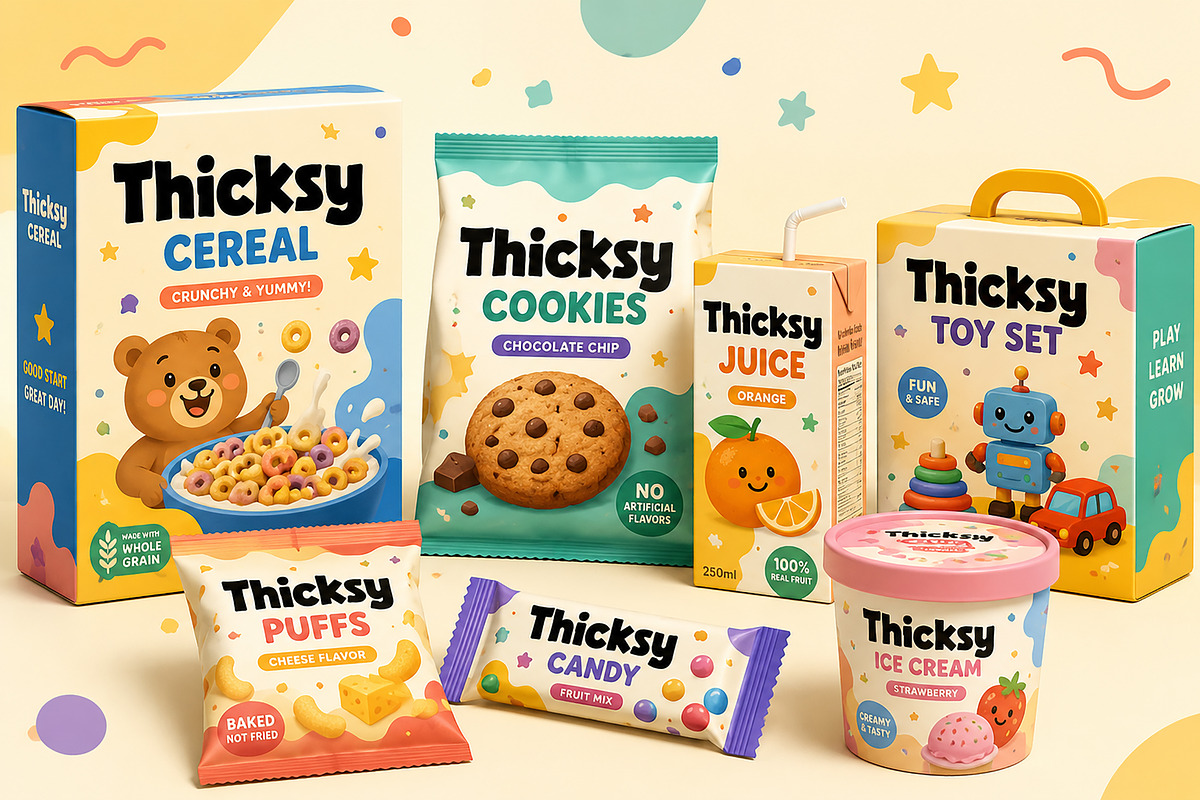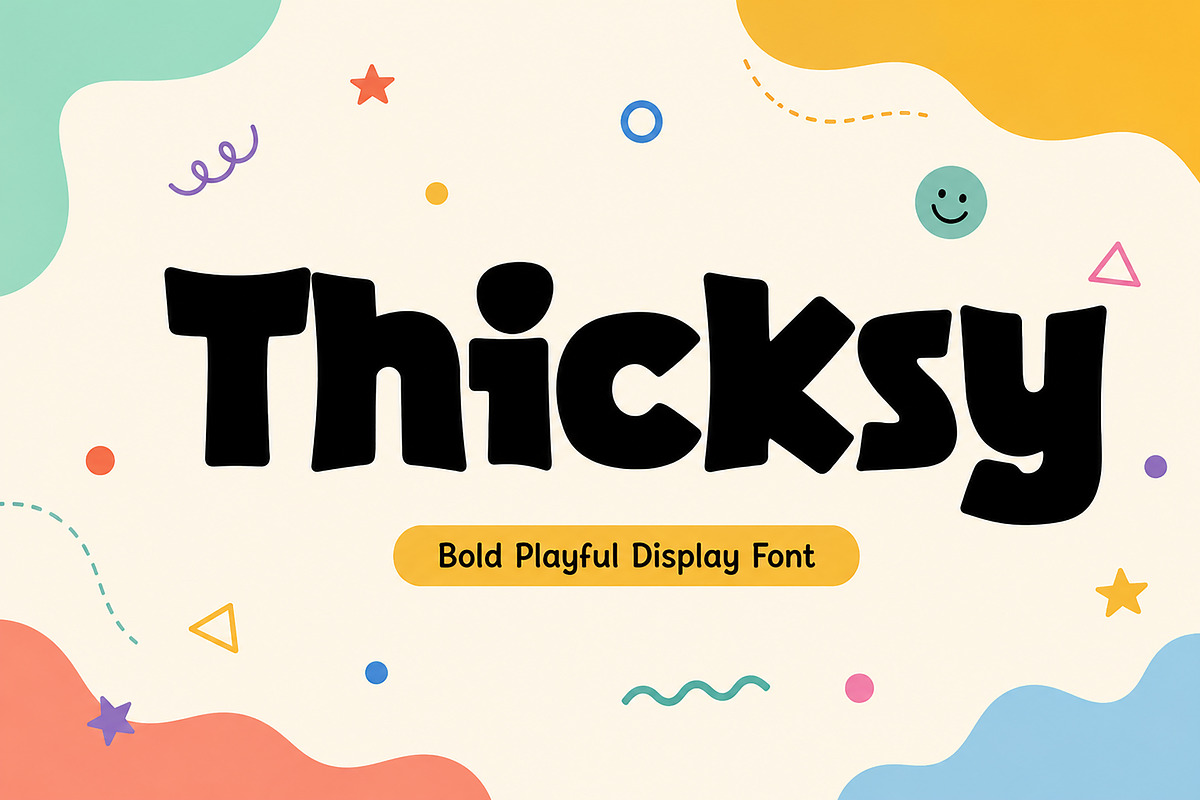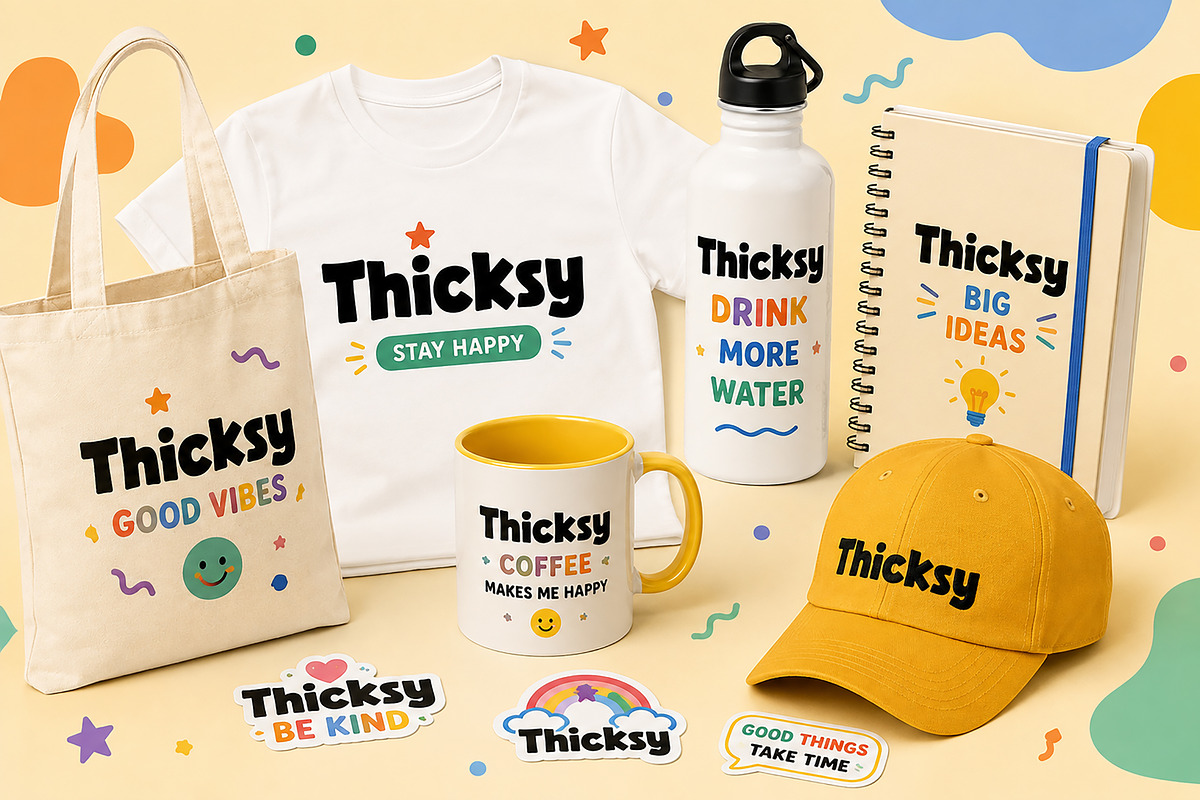
Thicksy
Thicksy – Bold Playful Display Font
Thicksy is a bold, playful display font designed to bring fun, energy, and personality to every project. Featuring chunky letterforms, soft rounded edges, and a cheerful handcrafted style, this font is perfect for eye-catching designs that need a friendly and modern look.
Whether you're creating children's products, playful branding, colorful packaging, social media graphics, posters, or party invitations, Thicksy delivers a strong visual impact while remaining easy to read.
Its quirky character shapes make it an excellent choice for creative projects that want to stand out with a warm, joyful, and approachable feel.
Kids Branding
Children's Books
Toy Packaging
School Projects
Posters
Stickers
T-Shirt Designs
Greeting Cards
Birthday Invitations
YouTube Thumbnails
Printable Crafts
Headlines & Titles
Creative Branding
Bold Playful Display Style
Easy to Read